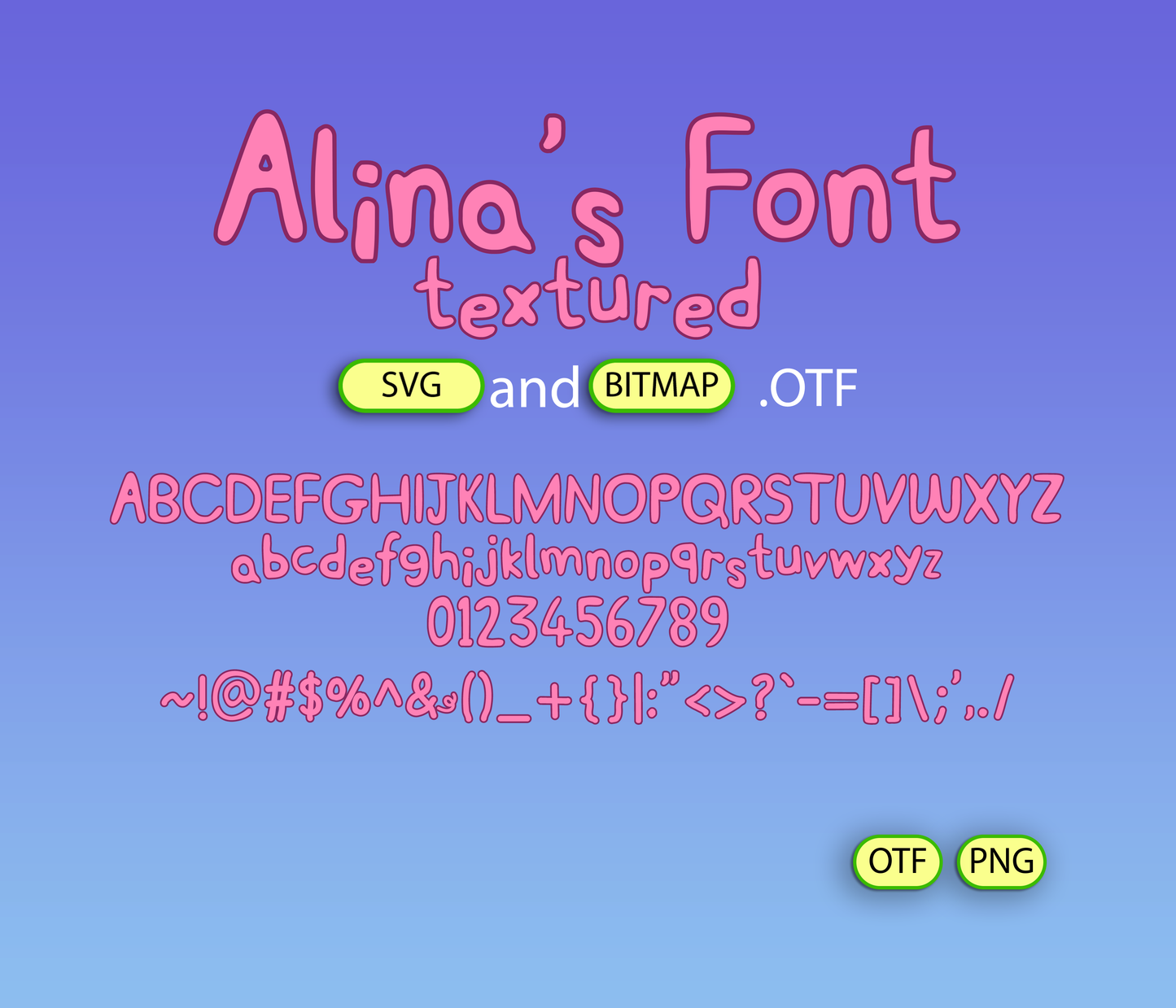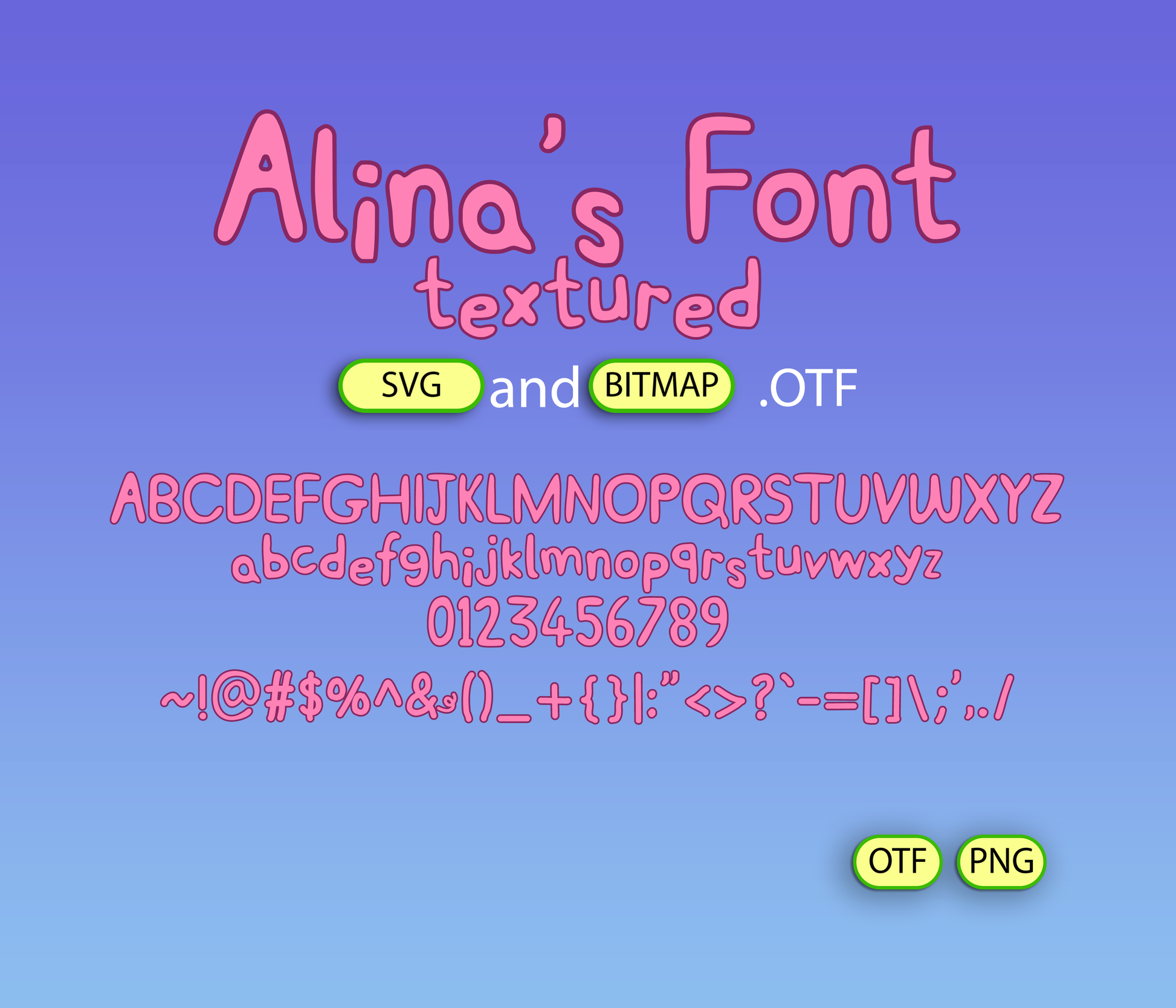
Playful Piglet Font Textured
Get ready to jump into a whimsical world with a font that's as cute and playful as young fans deserve. This font is specially crafted for little adventurers who love animated piglets and their delightful escapades.
Immerse yourself in a universe where every letter is an opportunity for fun and every number invites a new learning experience, all while capturing the essence of a beloved cartoon.
Emulating soft curves and bright, inviting colors, this font is perfect for engaging children in creative play and learning.
The Playful Piglet font is crafted for versatility, fitting perfectly into digital designs as well as physical creations. It's Cricut-compatible, making it a breeze for parents and teachers to create hands-on projects that kids will love.
This font brings the joy and innocence of childhood adventures to life, perfect for creating a world of imagination and learning for young children. Whether used for educational purposes or just for fun, this font adds a touch of whimsy to any project.